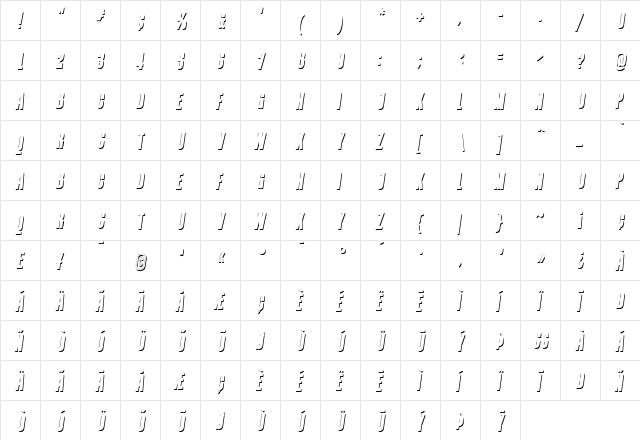
Containment Shade Font Preview
Containment Shade
Design Context for Containment Typeface
Containment is a composed and adaptable typeface that performs quietly and consistently across a wide range of design contexts.